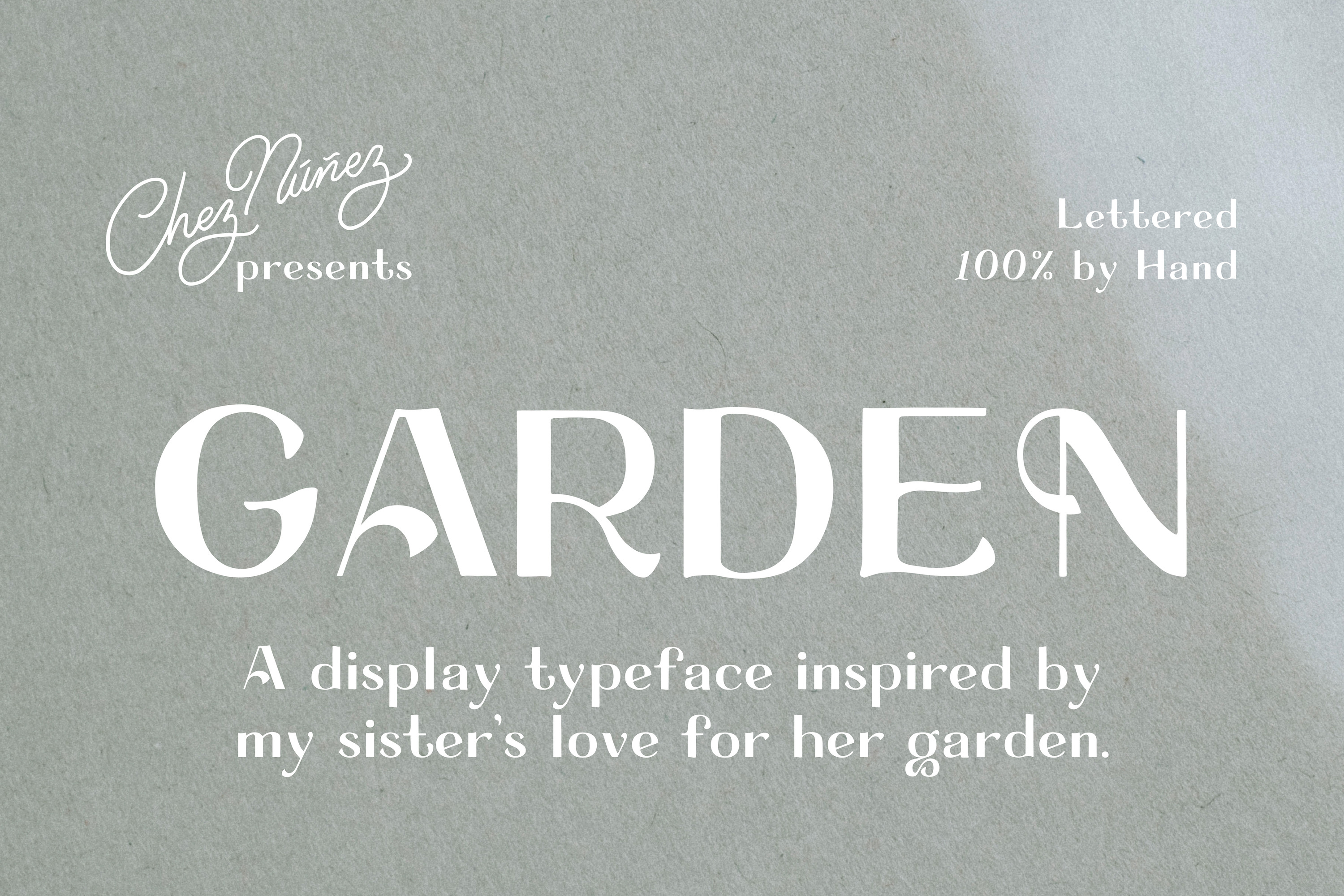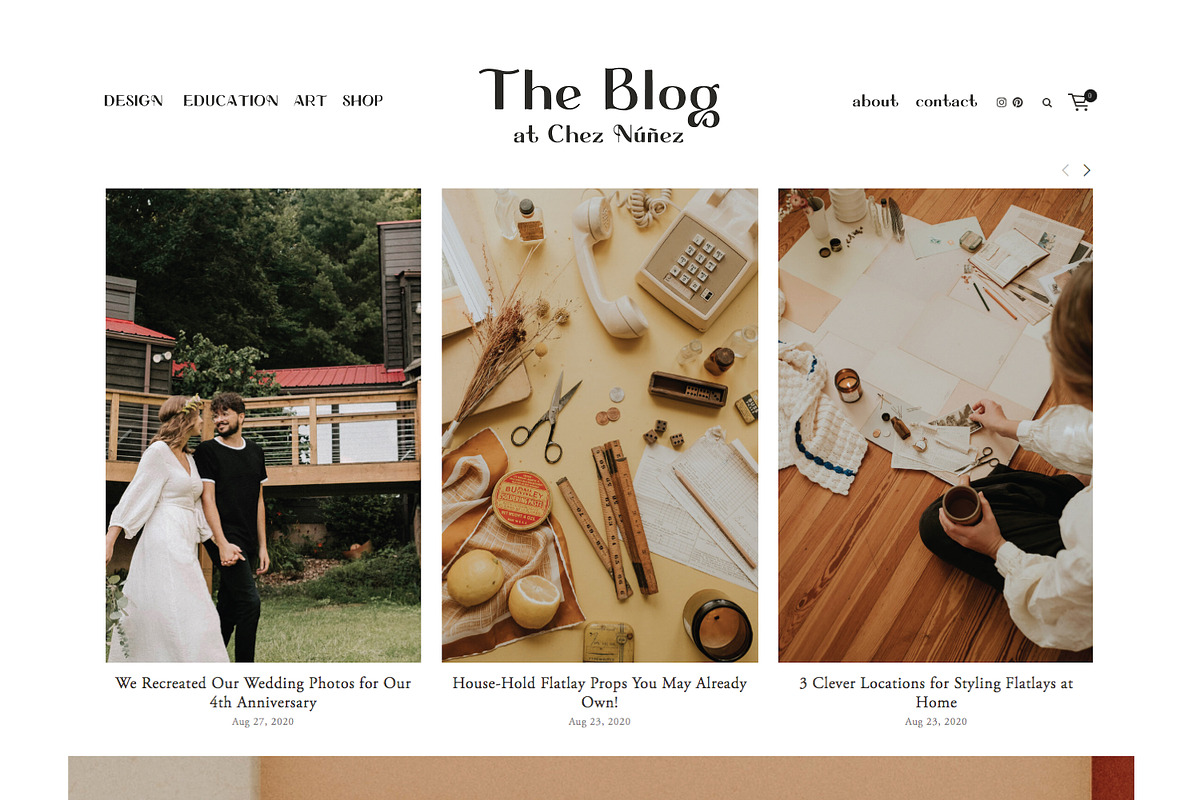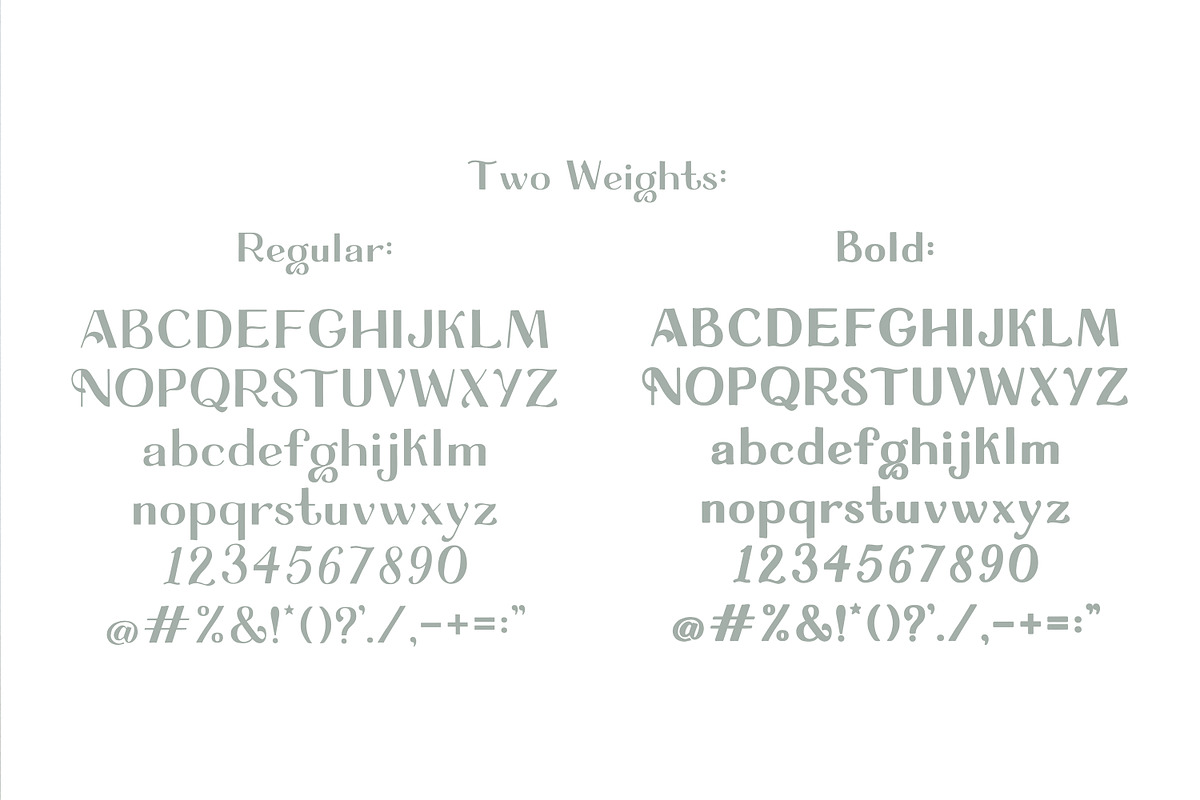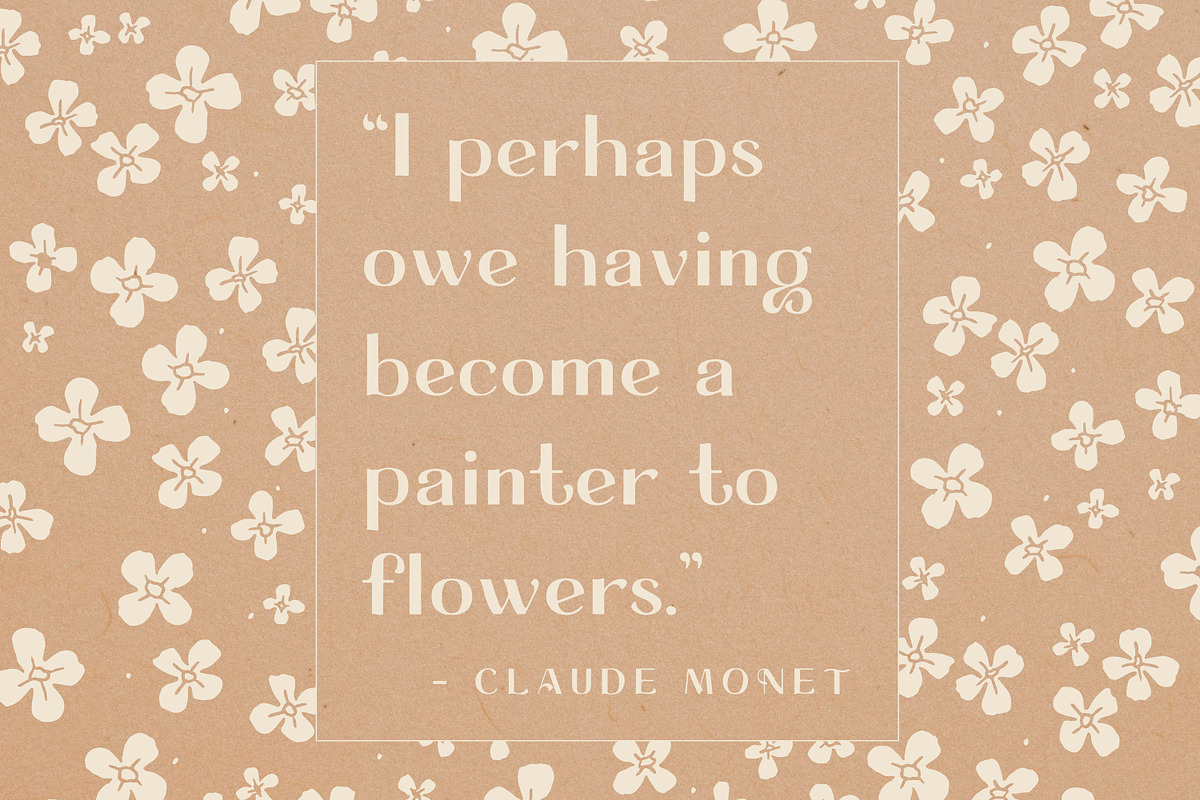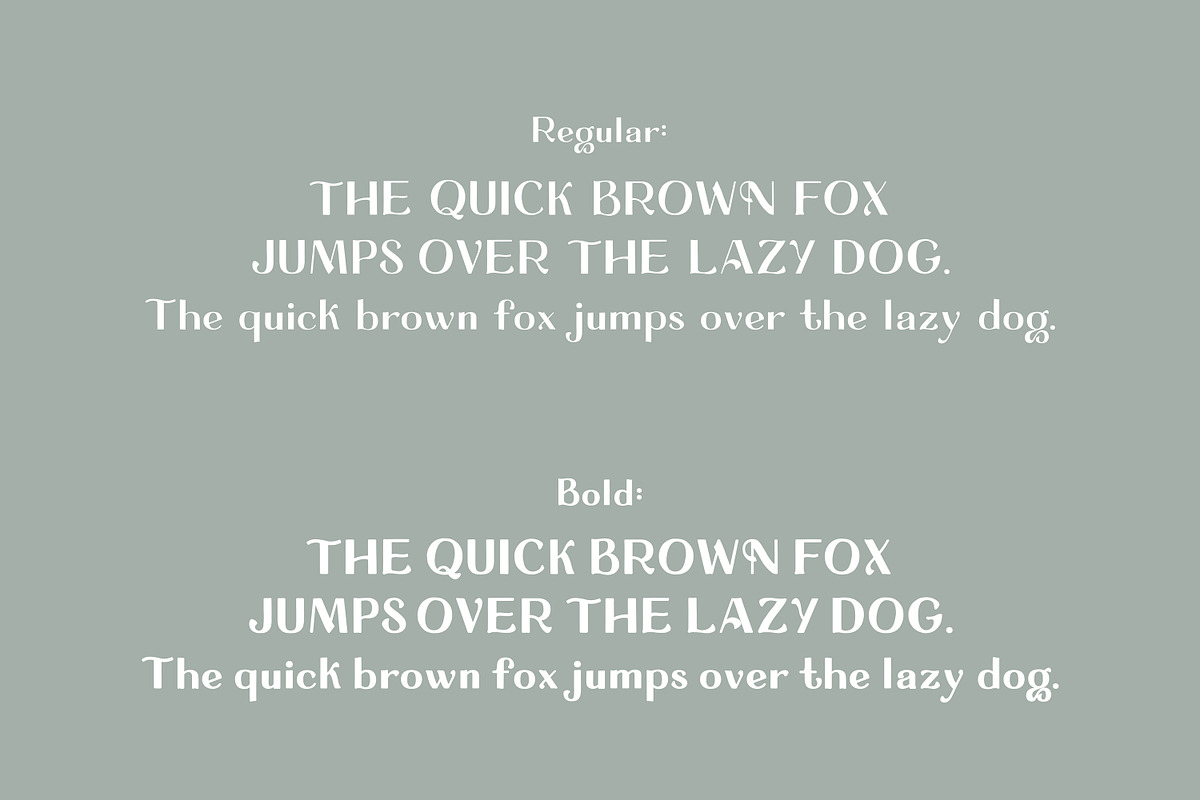
GARDEN: Hand Illustrated Retro Font
A display typeface inspired by my sister’s love for her garden.
- 2 weights: REGULAR and BOLD
- Standard Latin Characters + Numericals - lettered by hand, by Anna Núñez
- Punctuation, Mathematical Symbols, and Spanish accent marks - lettered by hand, by Anna Núñez